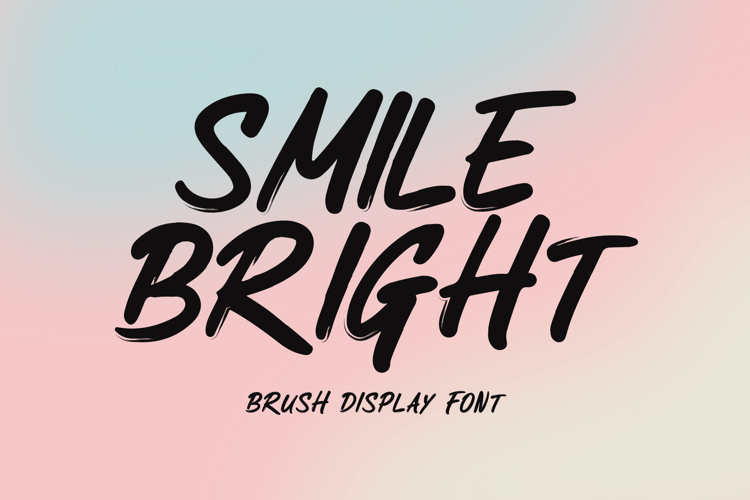
Introducing Smile Bright!
Smile Bright is a lively, brush-style font that brings energy and charm to a variety of designs. Perfect for logos, merchandise, print materials, photo frames, web headers, and more.